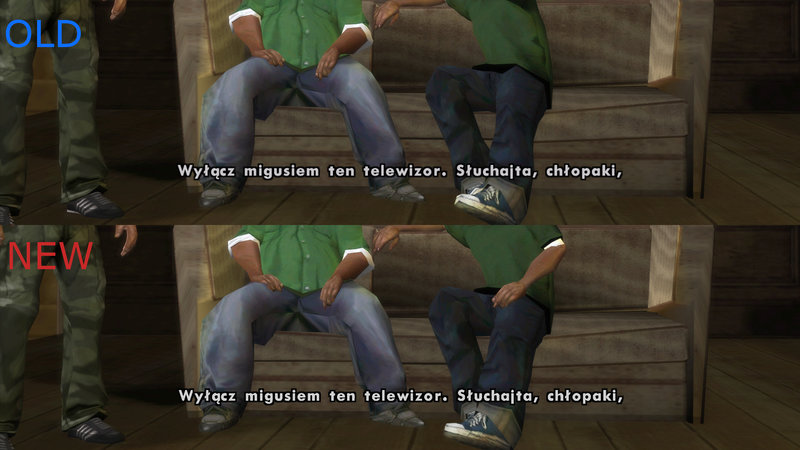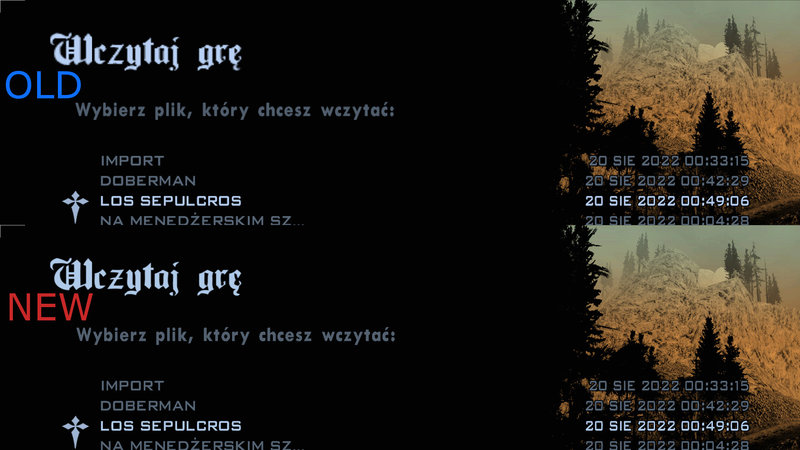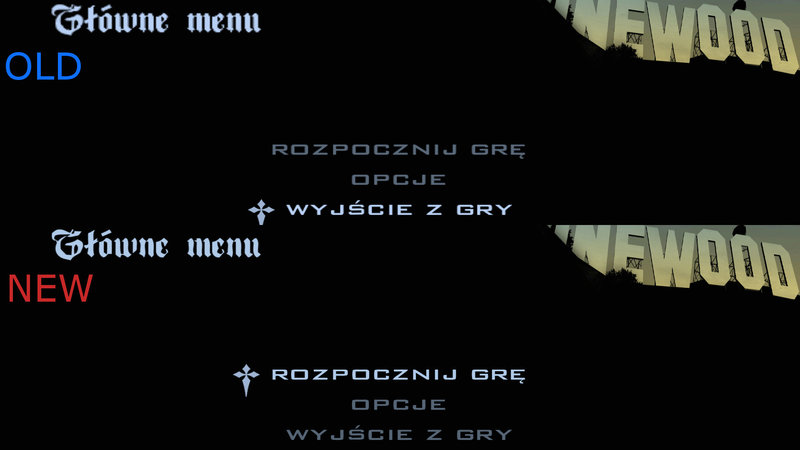
For my own needs, I changed the HD font textures created by DooMknight to match the Polish language version.
The textures are made very carefully, the letters are at the right height and are not trimmed.
Na własne potrzeby przerobiłem tekstury czcionek HD, które stworzył DooMknight, aby odpowiadały polskiej wersji językowej.
Tekstury wykonane są bardzo starannie, litery są na odpowiedniej wysokości i nie są przycięte.